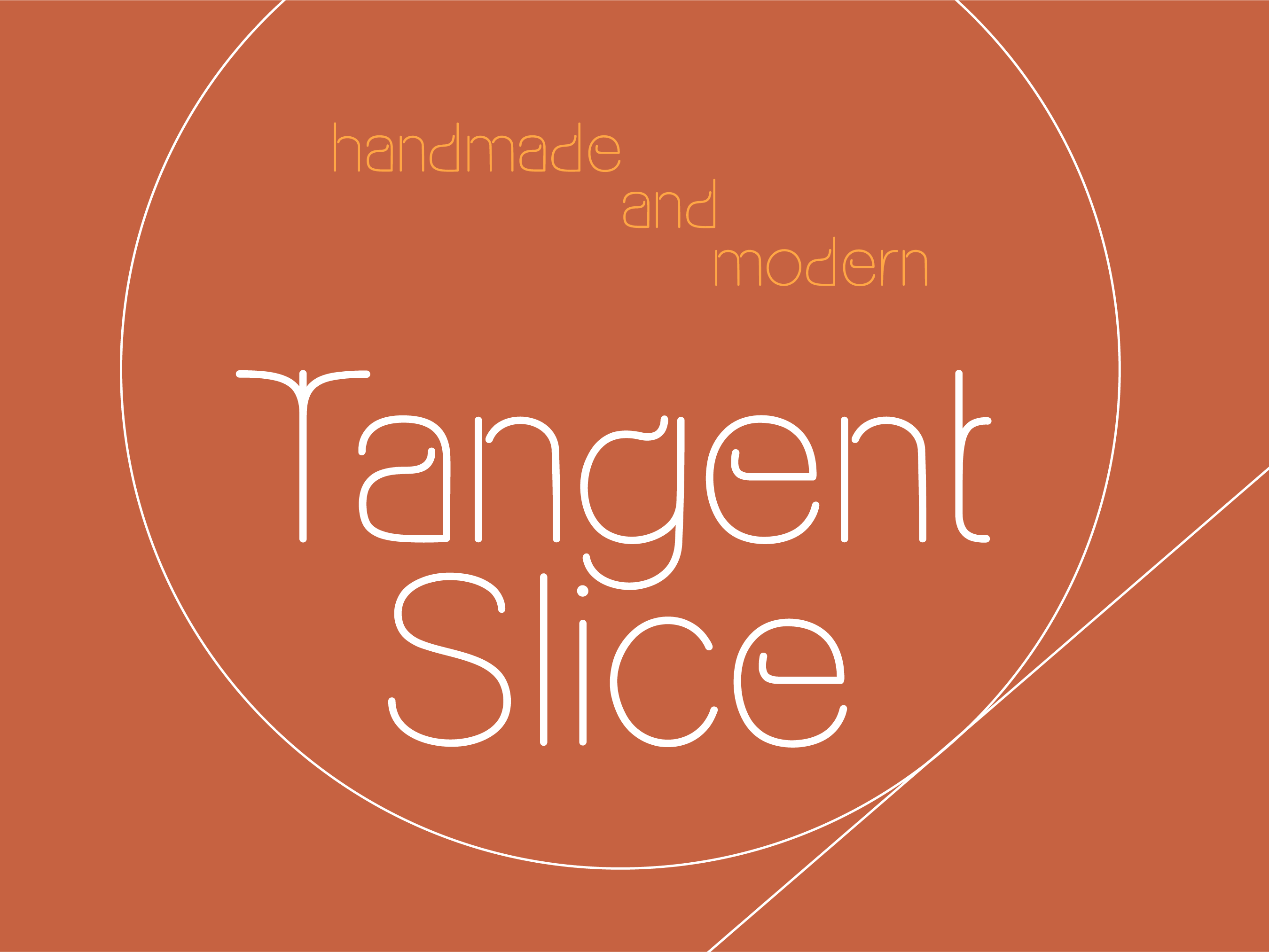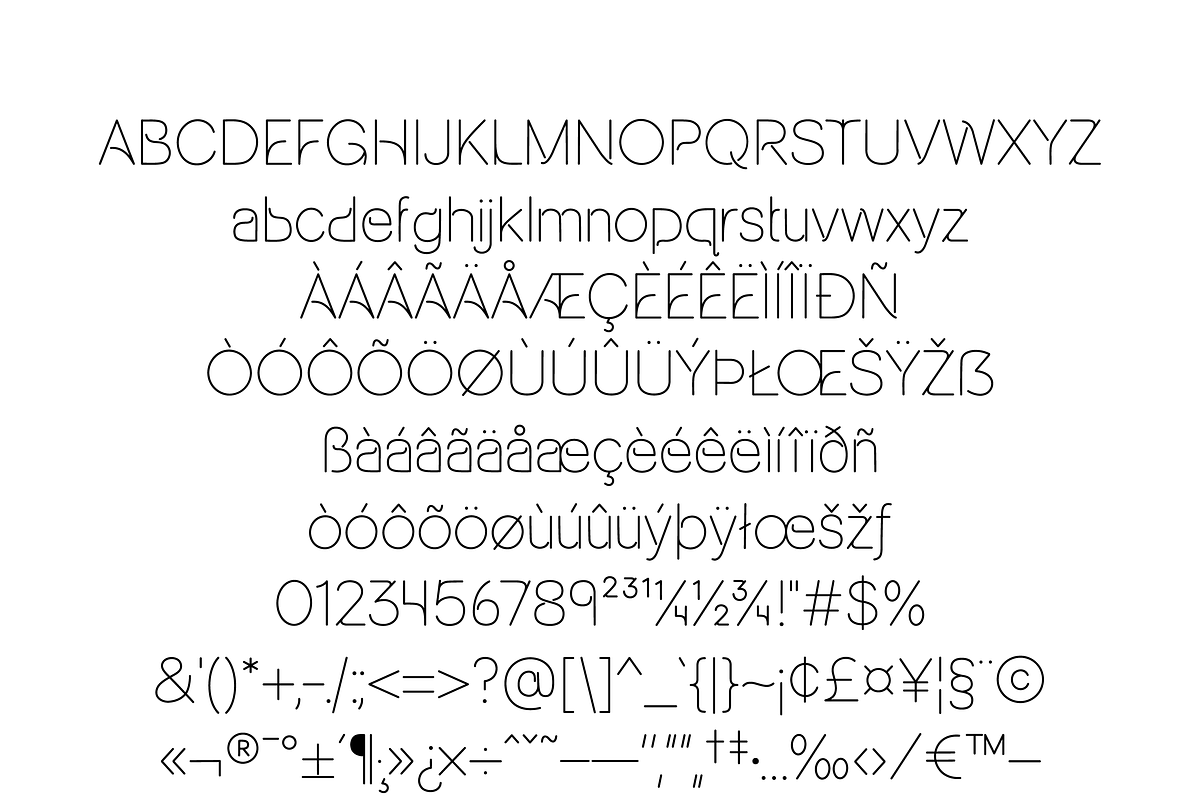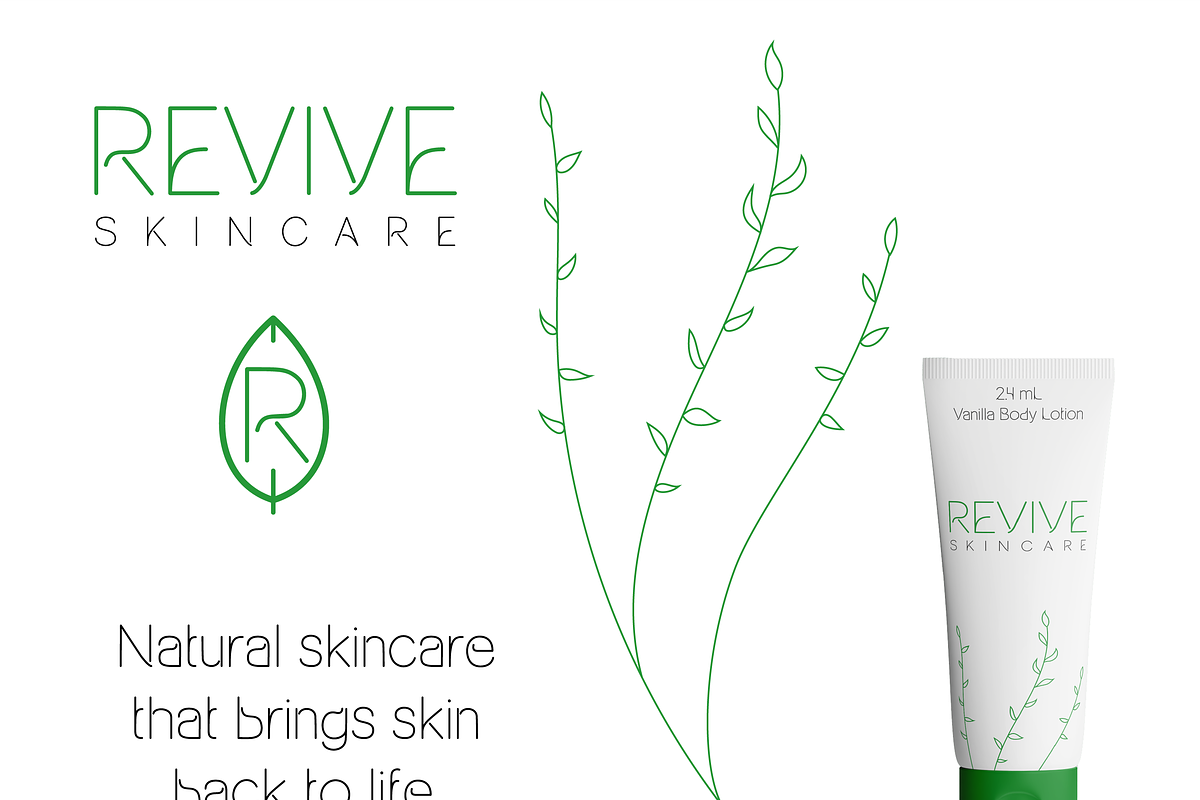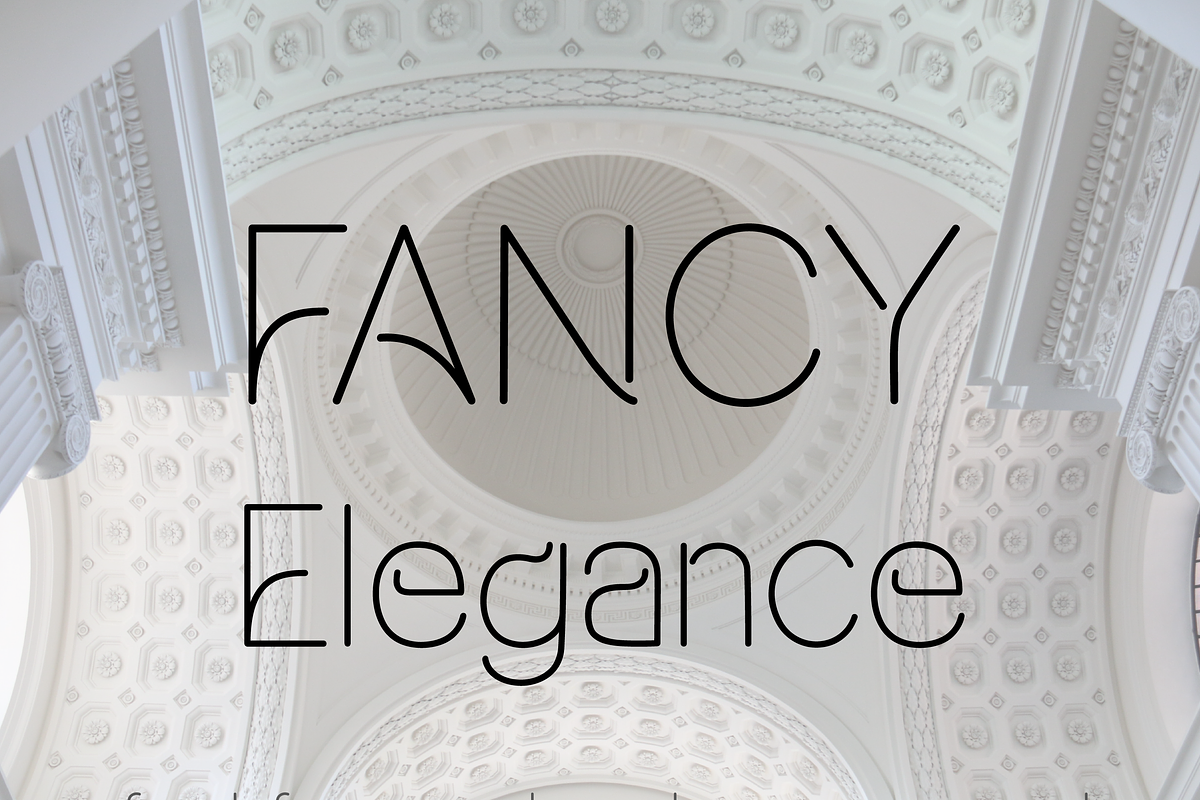
Tangent Font
Introducing Tangent Font, a captivating and dynamic display typeface that breaks the boundaries of traditional design. With its unique and angular letterforms, this font adds a sense of energy and modernity to your projects. Perfect for headlines, posters, and branding materials, Tangent Font grabs attention and adds a bold statement to your creative endeavors, taking your designs on an exciting and unexpected journey.